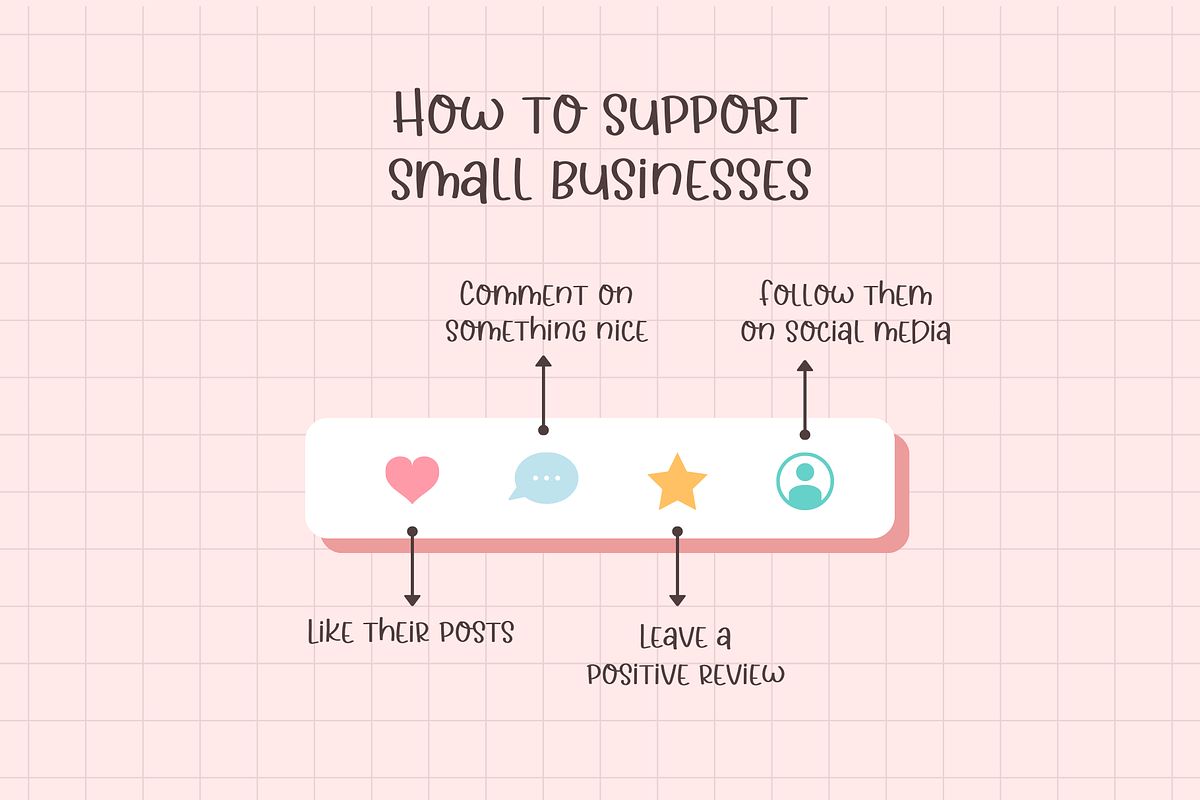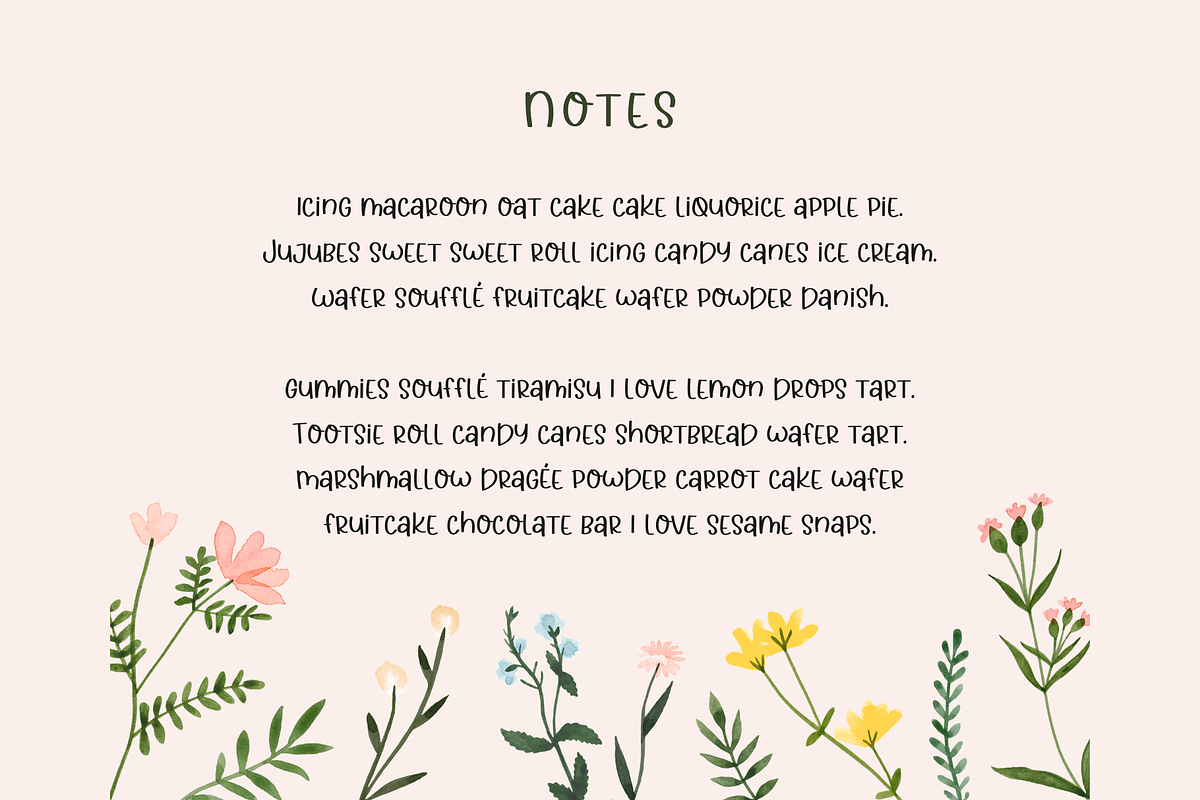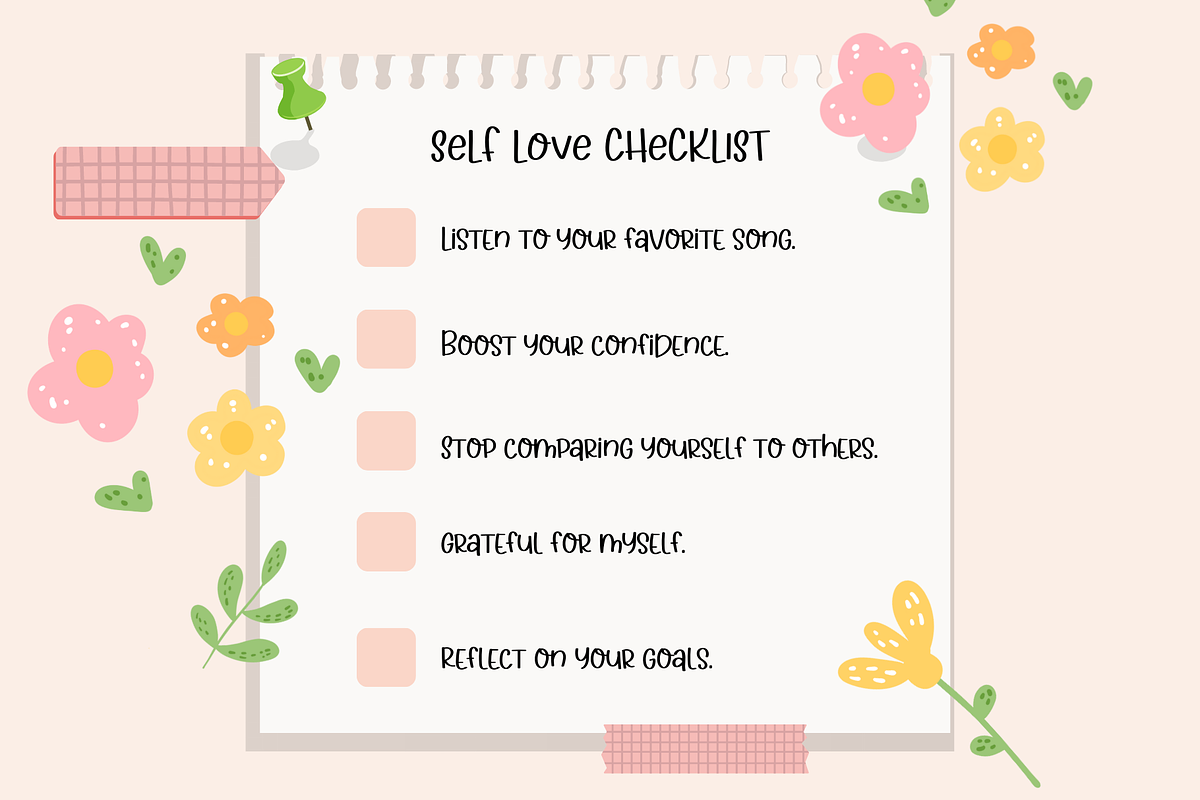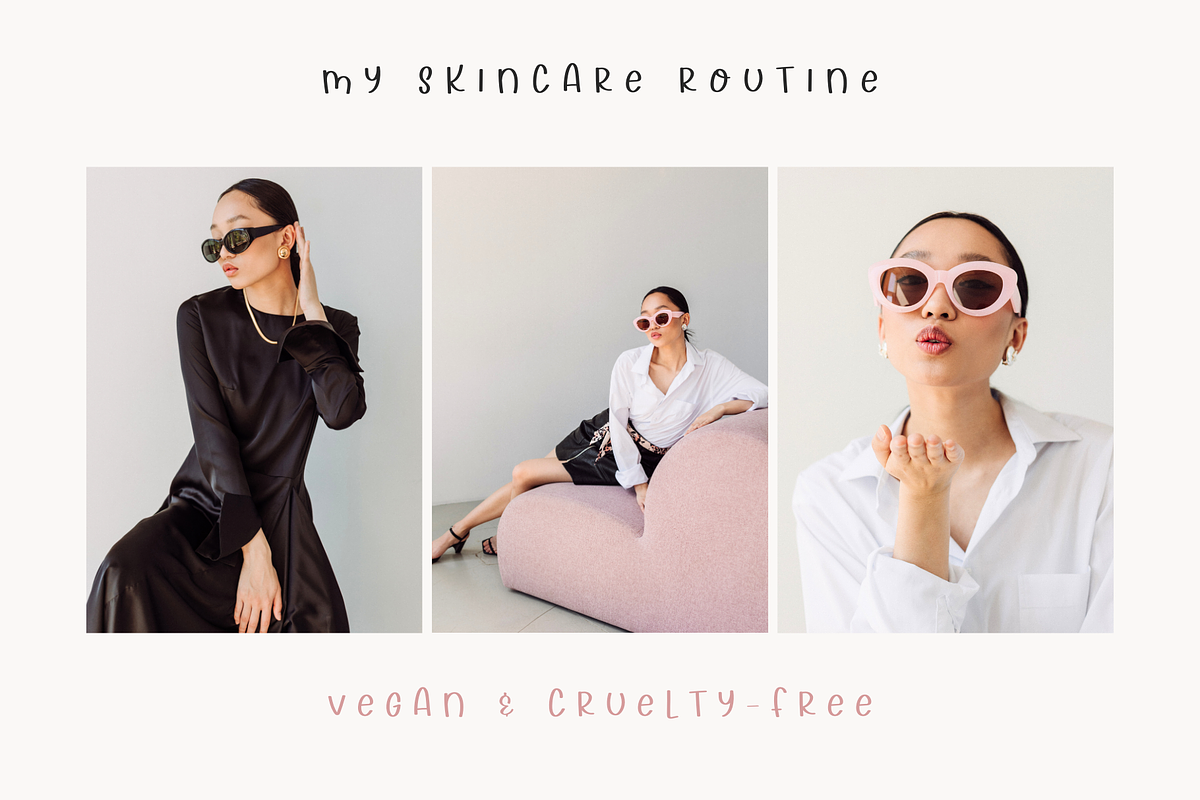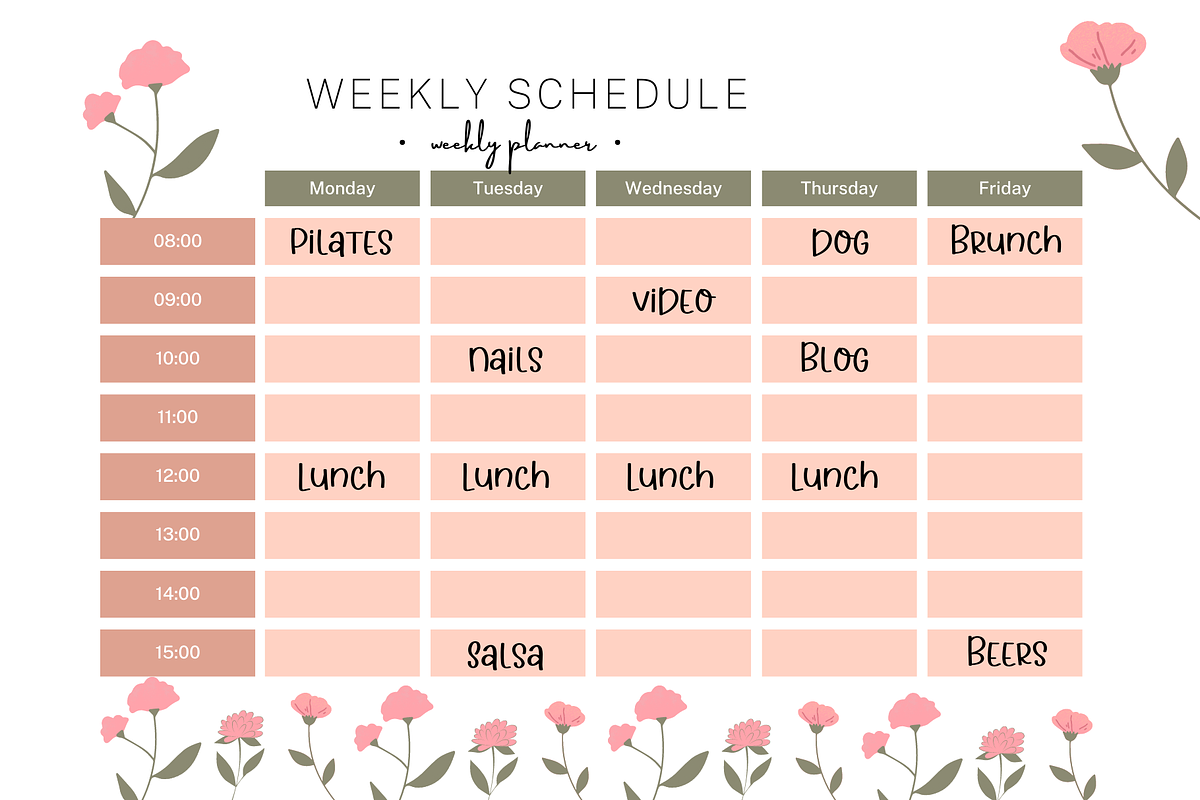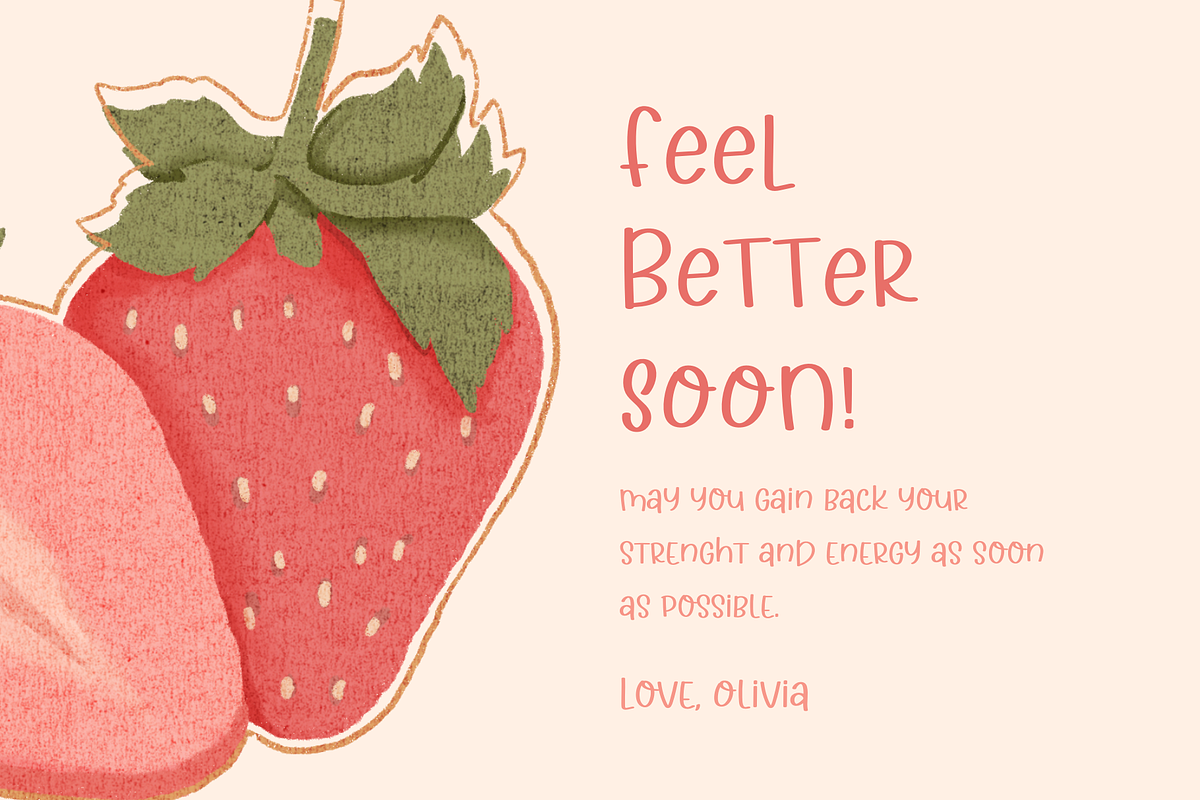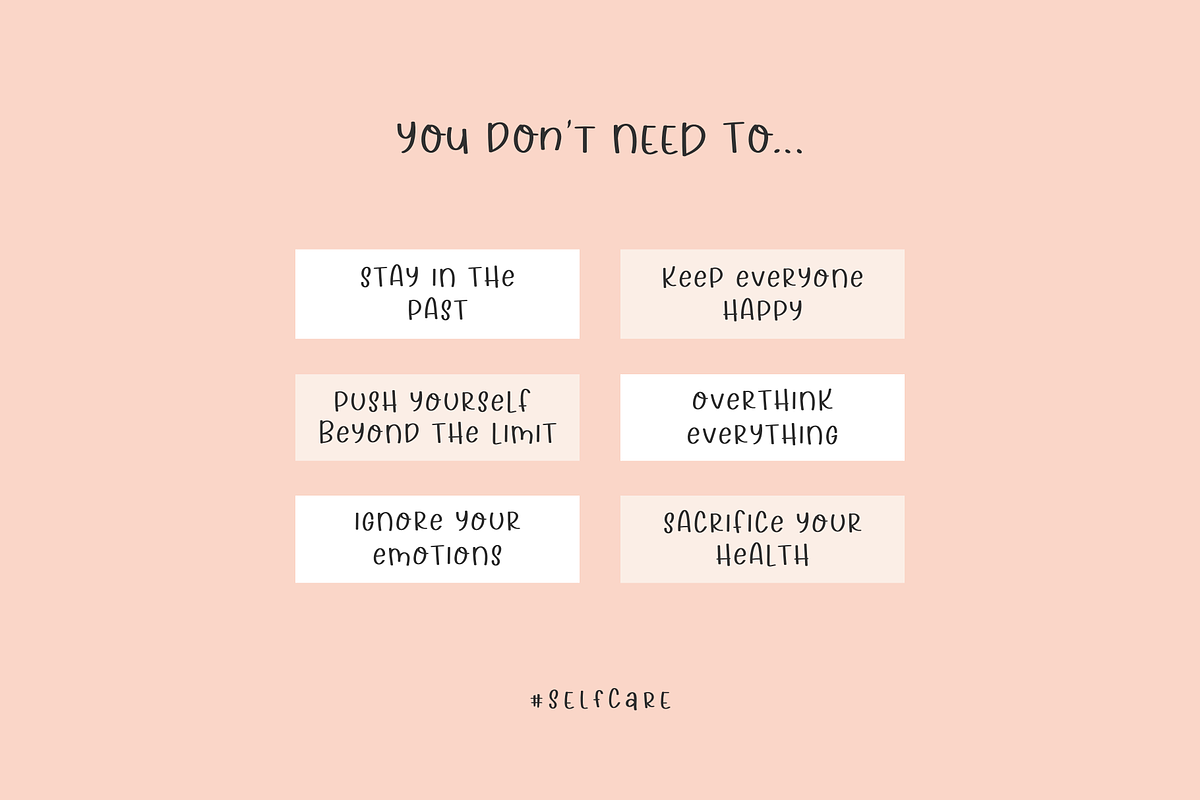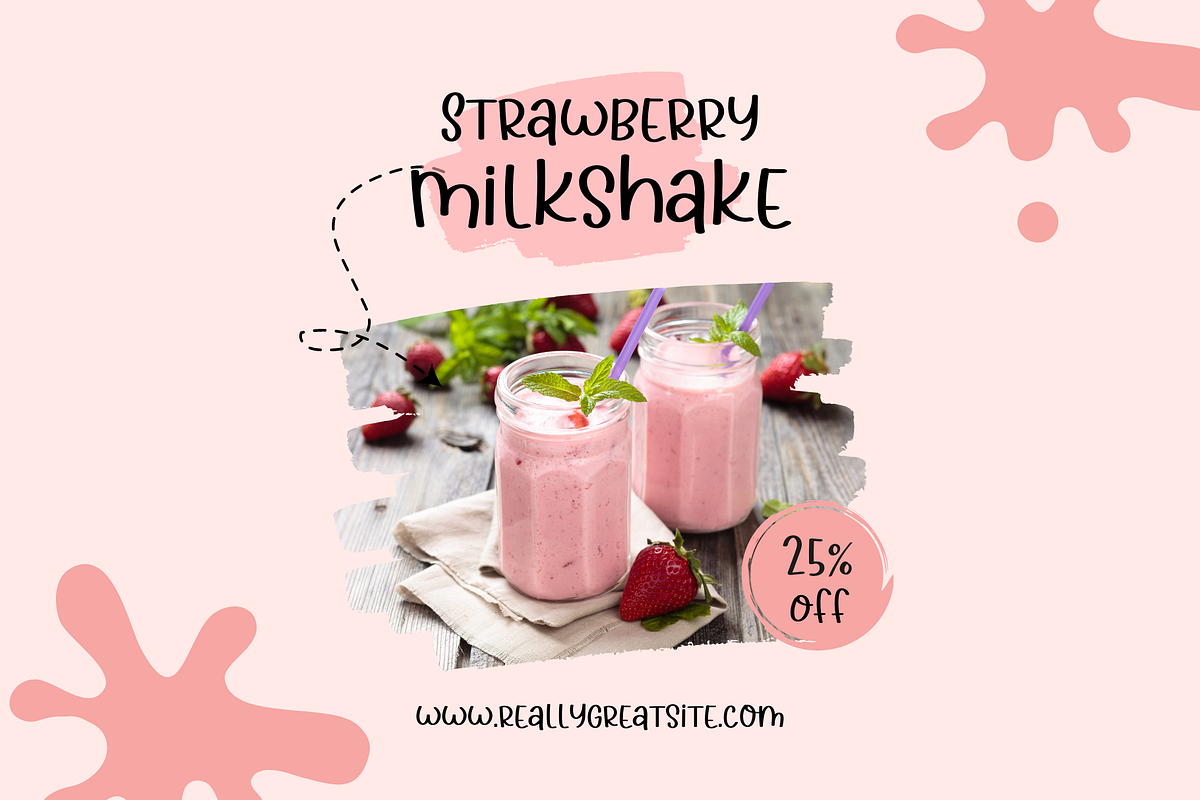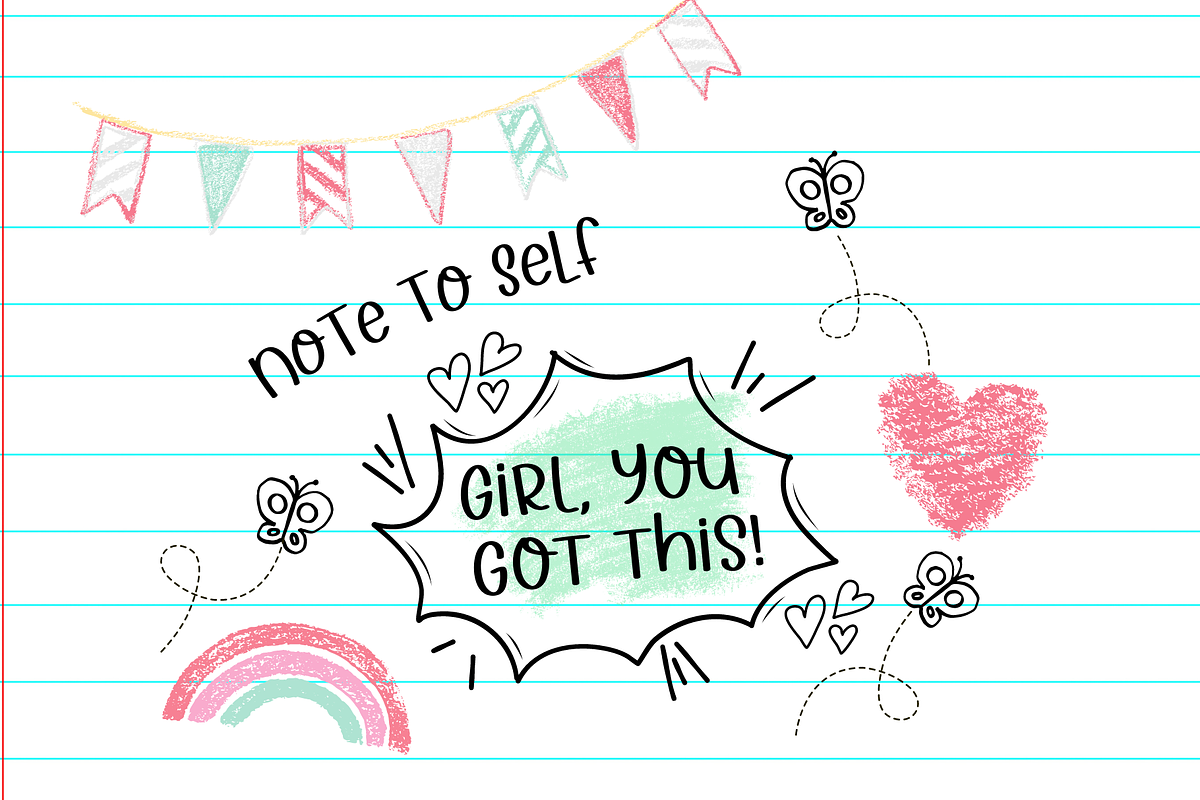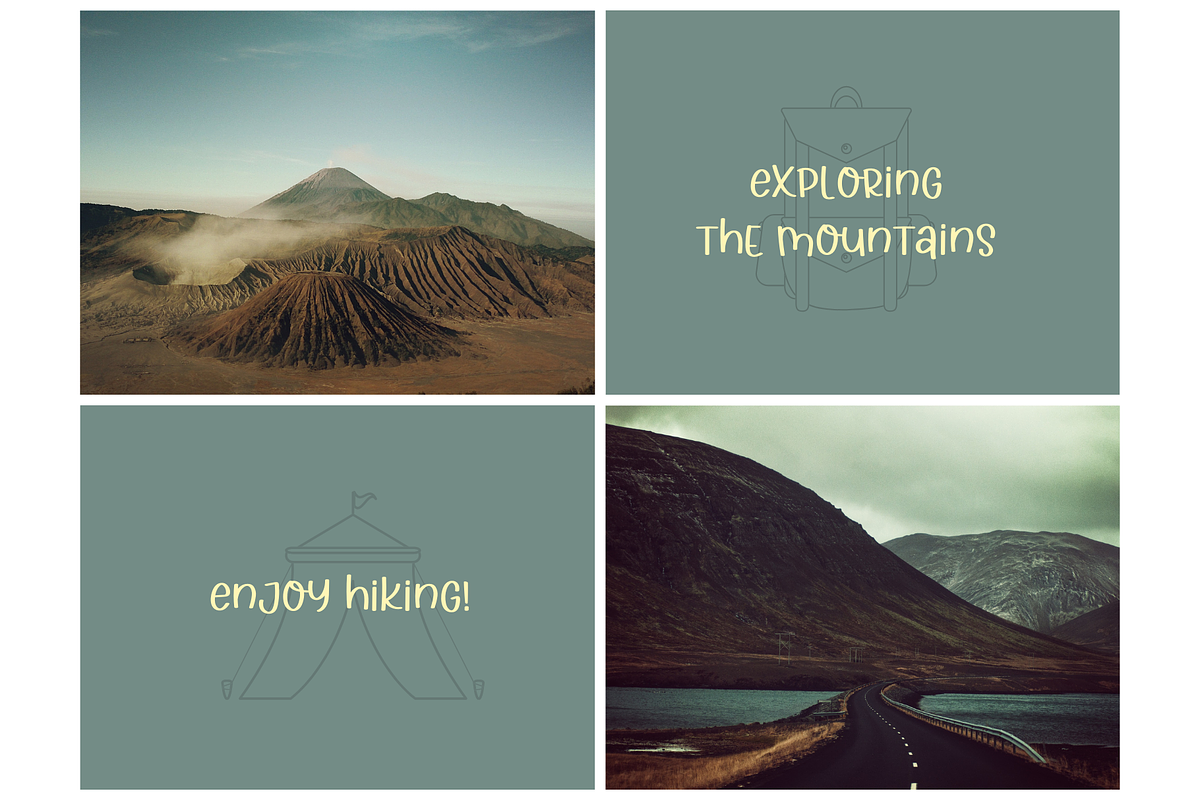
Miss Loreen
You can use this font to jazz up your digital planner, journal, invitations, note-taking, or anything that requires a handwriting look. Or use it with your projects on in Cricut, Adobe Illustrator, Photoshop, Canva Pro, Silhouette, Procreate, Affinity, Notability, GoodNotes, and more!
Characters: a b c d e f g h i j k l m n o p q r s t u v w x y z A B C D E F G H I J K L M N O P Q R S T U V W X Y Z 0 1 2 3 4 5 6 7 8 9 . , : ; ! ? ' " ‘ ’ “ ” @ _ & # % * + - × ÷ = ~ / ( ) { } [ ] $ ¢ € £ ¥ © ® ™
À Á Â Ã Ä Å Æ Ç È É Ê Ë Ì Í Î Ï Ñ Ò Ó Ô Õ Ö Ø Œ Ù Ú Û Ü Ý Ÿ Þ Ð Ł Š Ž ¡ ¿ « » ‹ › ¤ • ° ± − ¶ § ‰ ⁄ – — à á â ã ä å æ ç è é ê ë ì í î ï ñ ò ó ô õ ö ø œ ù ú û ü ý ÿ þ ð ł š ž ß ı ^ ˆ ˇ ¨ ˜ ` ´ ¸ ‛ ‚ „ … | † ‡